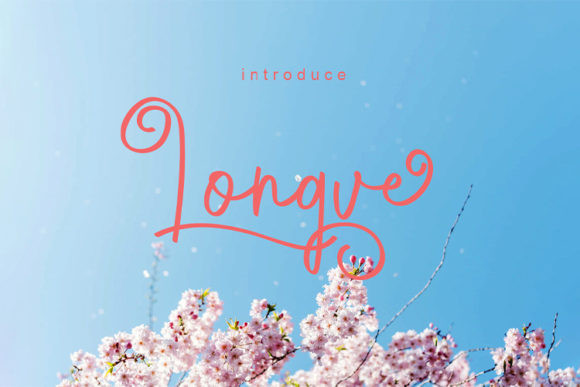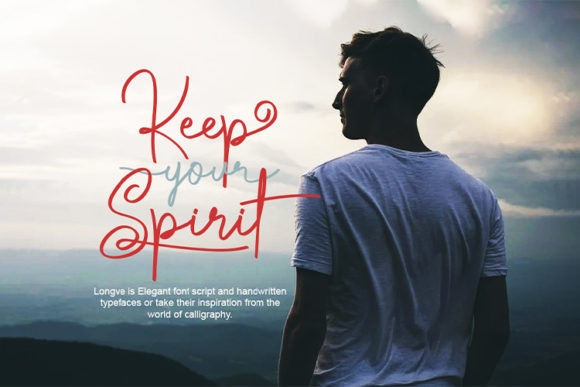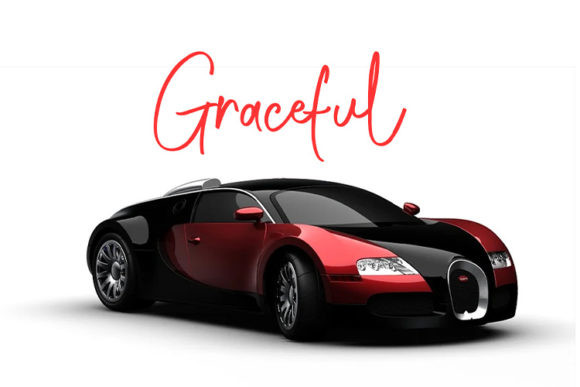
Longve Font
Longve is a magical handwritten font carefully created with a touch of elegance. It will elevate a wide range of design projects to the highest level, be it branding, headings, wedding designs, invitations, signatures, logos, labels, and much more!